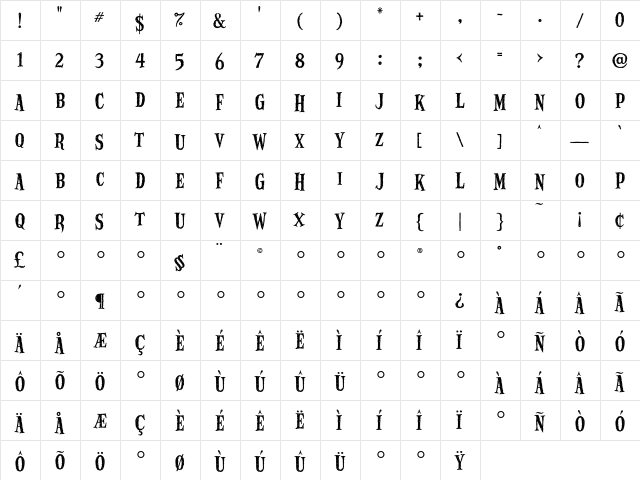
HouseofDeath Regular
Design Context for HouseofDeath Typeface
HouseofDeath leans into the macabre with letterforms designed to disturb and intrigue in equal measure.
Ideal for Halloween projects, horror film titles, haunted house signage, and dark editorial design.
Font Pairing: Pair with a clean neutral sans-serif for body copy to let HouseofDeath's character lead without overwhelming the composition.
Pro Tip: HouseofDeath works best as a headline or focal element. Pair it against plain, neutral body text to amplify the contrast.